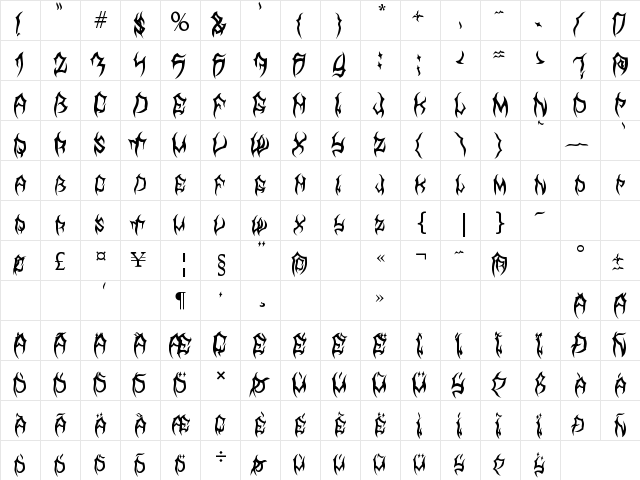
MB-CastleType Regular
| Designer | ModBlackmoon |
Design Context for MB-CastleType Typeface
MB-CastleType is a composed and adaptable typeface that performs quietly and consistently across a wide range of design contexts.